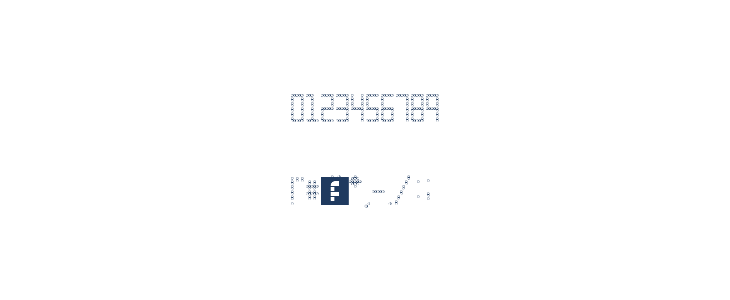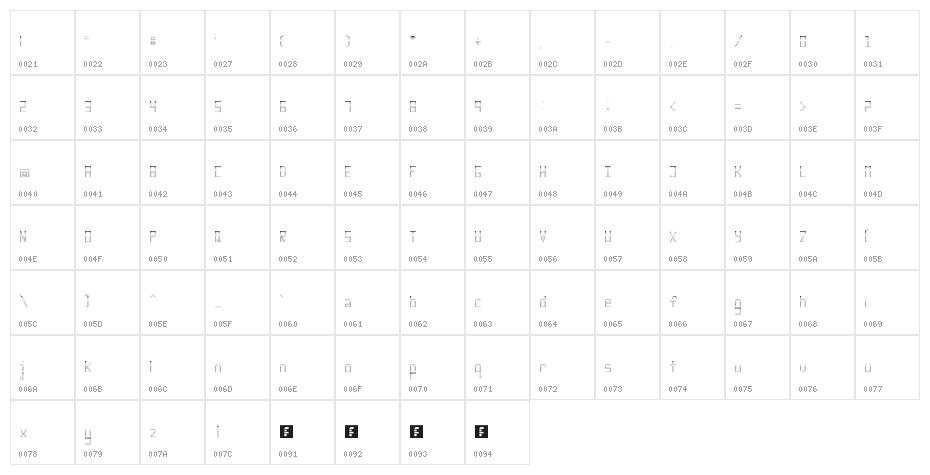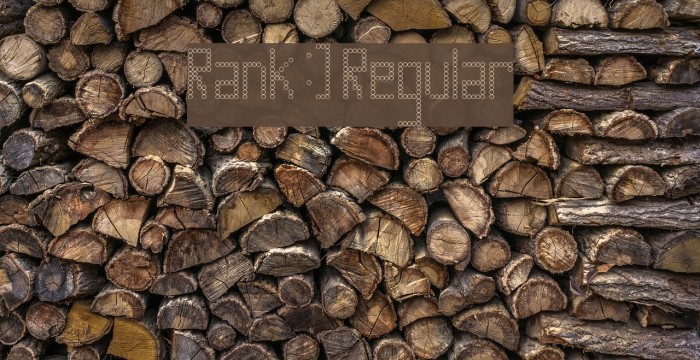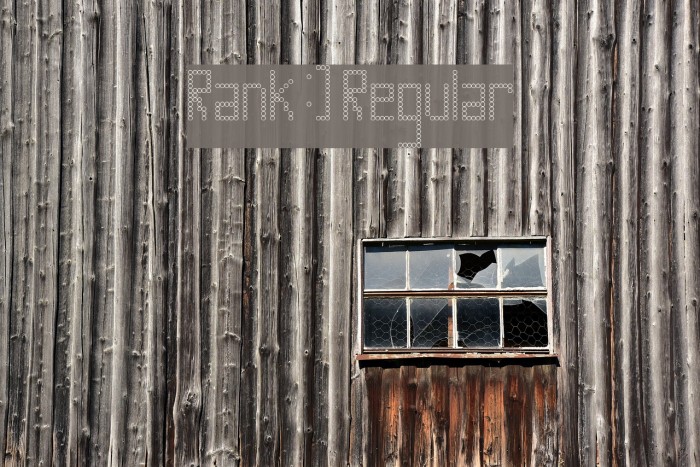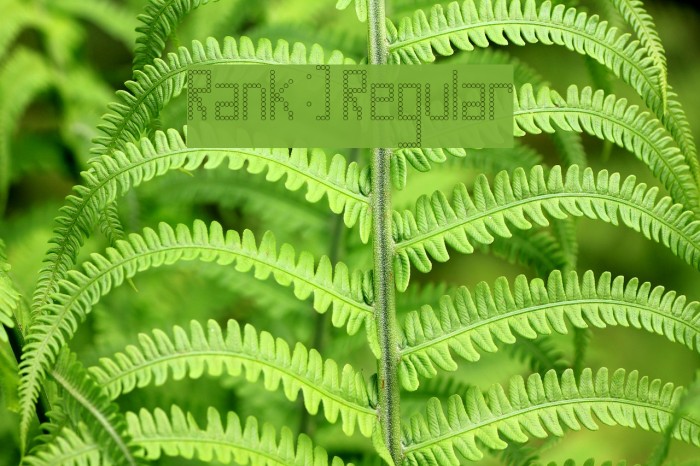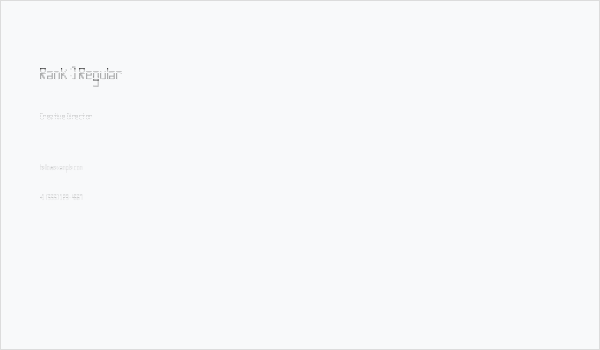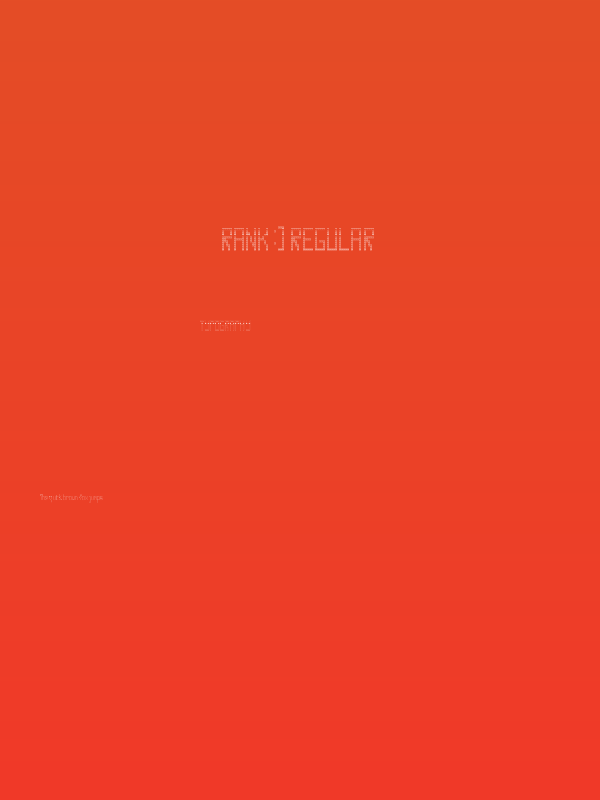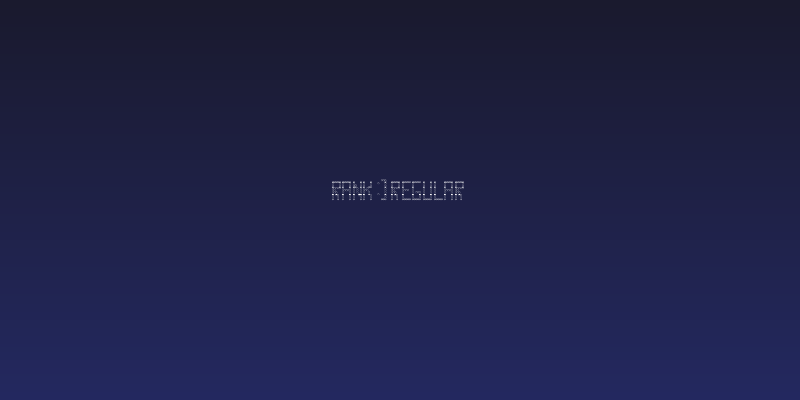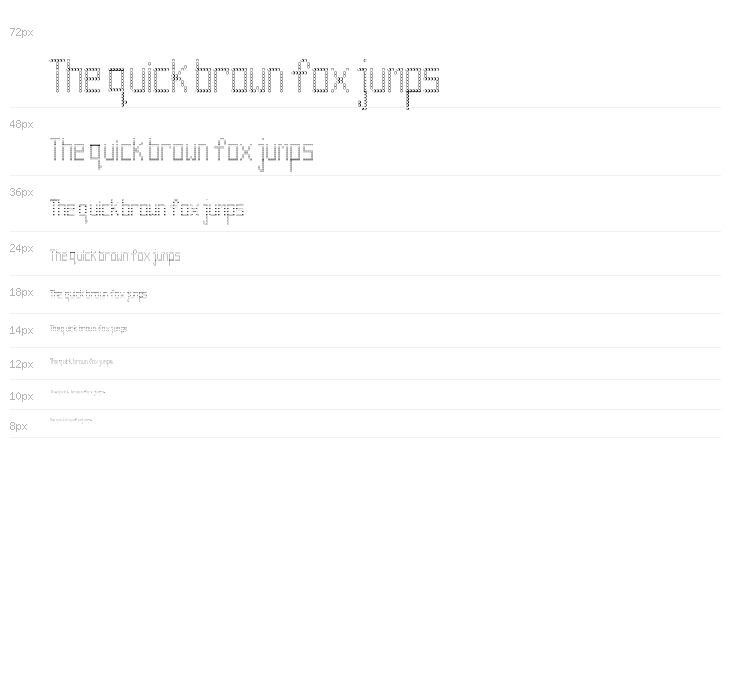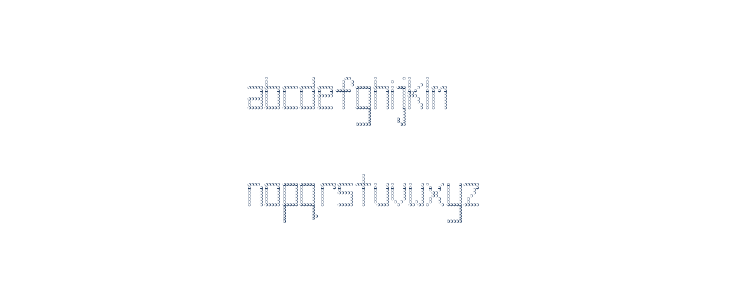
Rank:] Regular Font
Rank:] Regular Description
This font features a unique dotted design, where each character is composed of small, evenly spaced circles. The style is geometric and modern, with a playful yet structured appearance. The uppercase and lowercase letters maintain a consistent height, creating a uniform look across the alphabet. Numbers and special characters follow the same dotted pattern, ensuring cohesion throughout the font. The overall aesthetic is reminiscent of digital displays or LED signage, making it suitable for tech-related projects or futuristic themes.
| Use Case | Logos, Headlines, Digital displays |
| Proposed Projects | Ideal for digital displays, tech-themed designs, futuristic branding, or creative posters. |